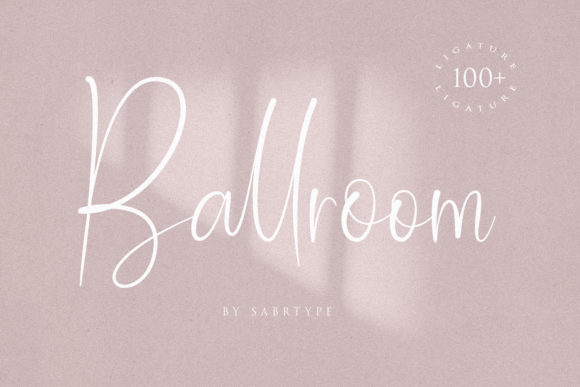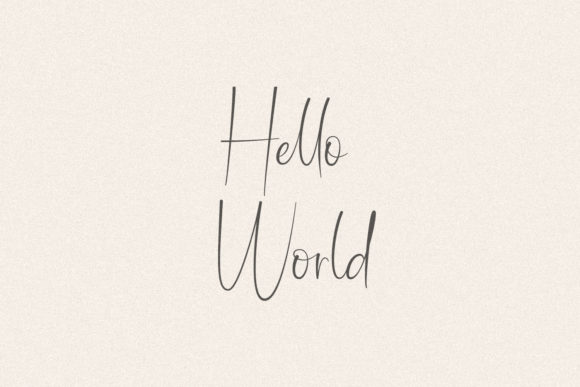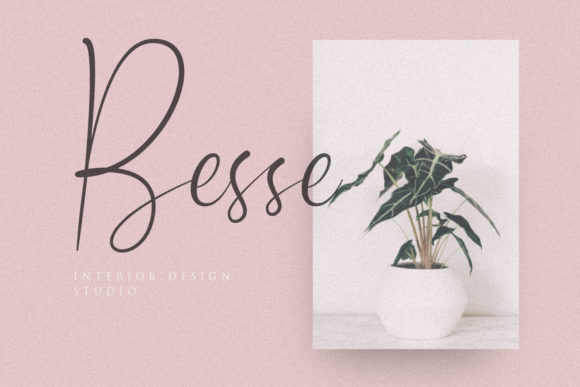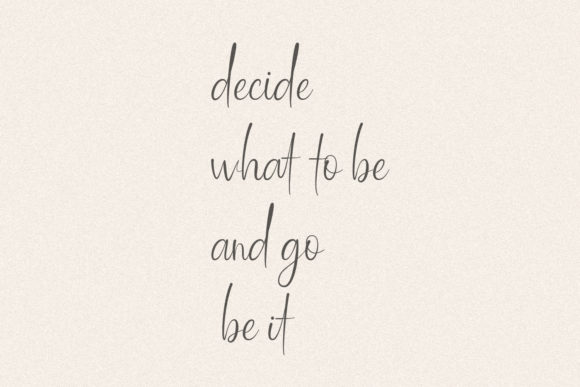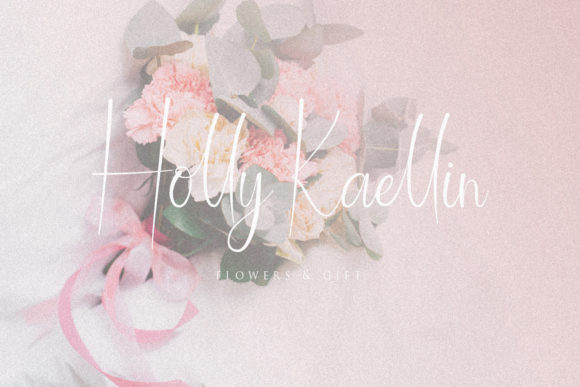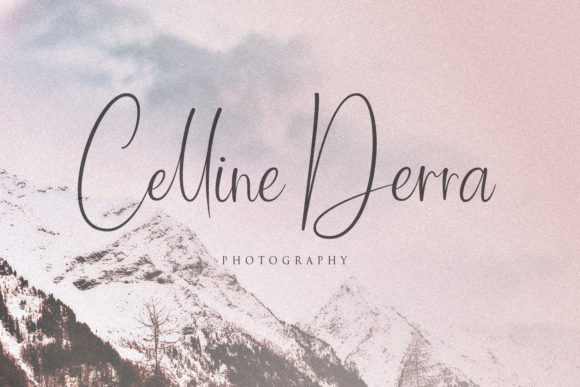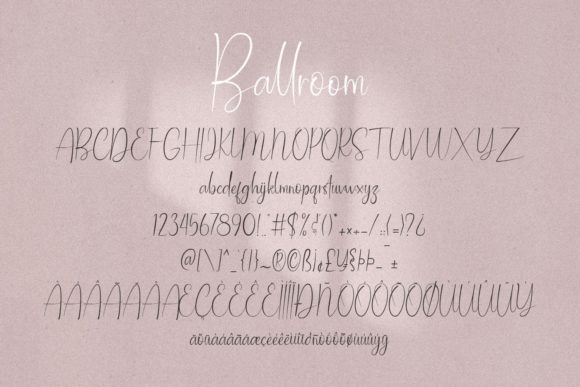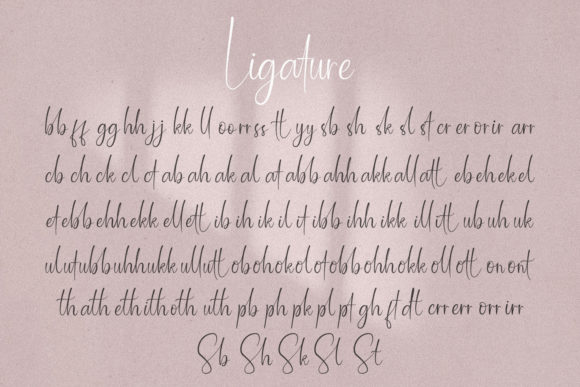
Ballroom Font
About Ballroom Font
The Ballroom is a natural handwritten font. It’s perfect for adding a natural touch to your logos, invitations, stationery, wedding designs, social media posts, advertisements, product packaging, posters, and much more!